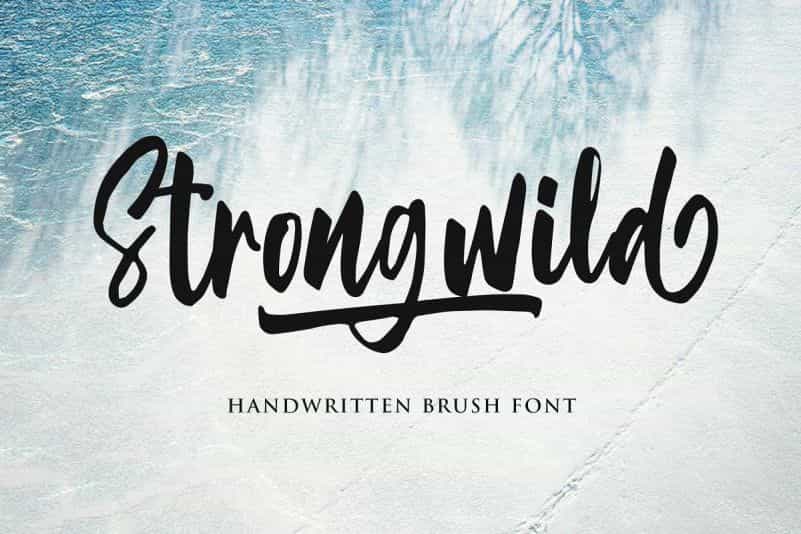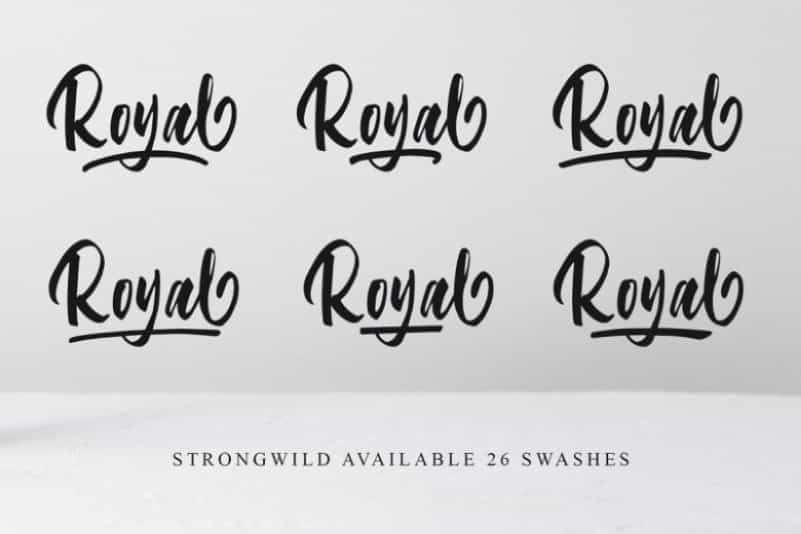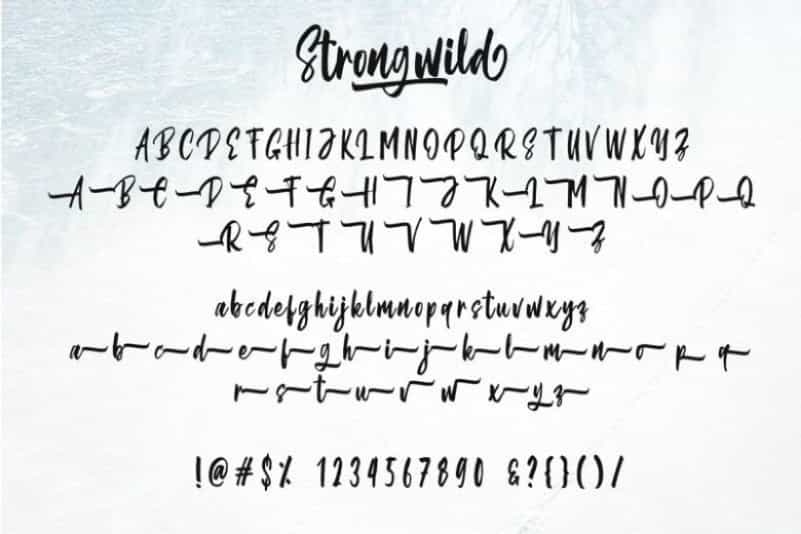
Introducing Strongwild Font. Designed and created by Typefar it’s a simple and easy to use platform for all your web-based typing needs. The font containing handwritten type is created with the help of brushpen! have consistent letters. Brave brush font. Available 26 swash . This font is ideal for your new design ranging from printed pillow, T-shirt and so on.